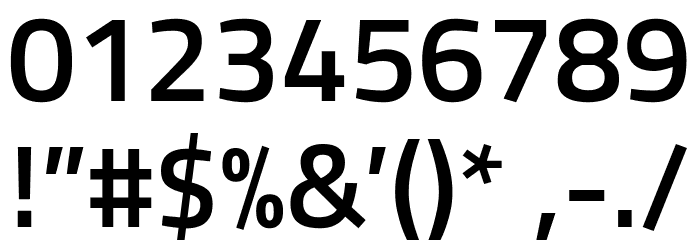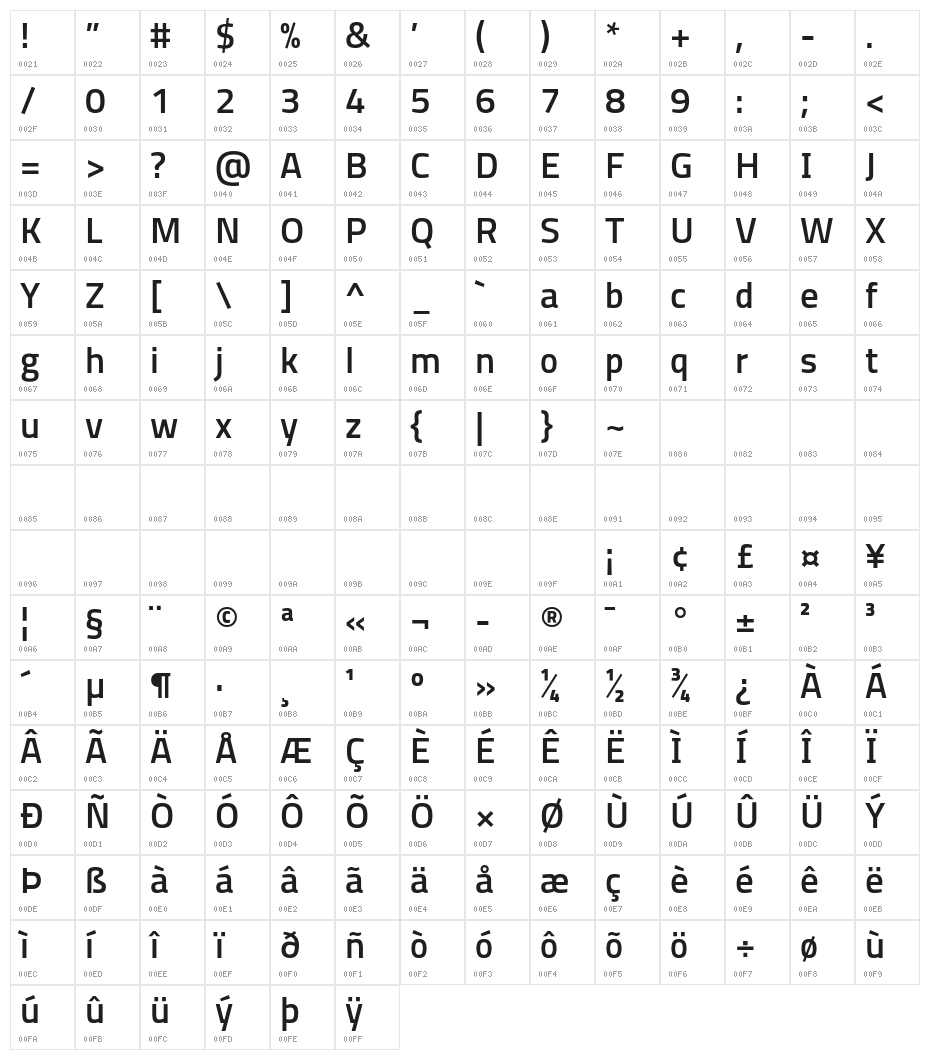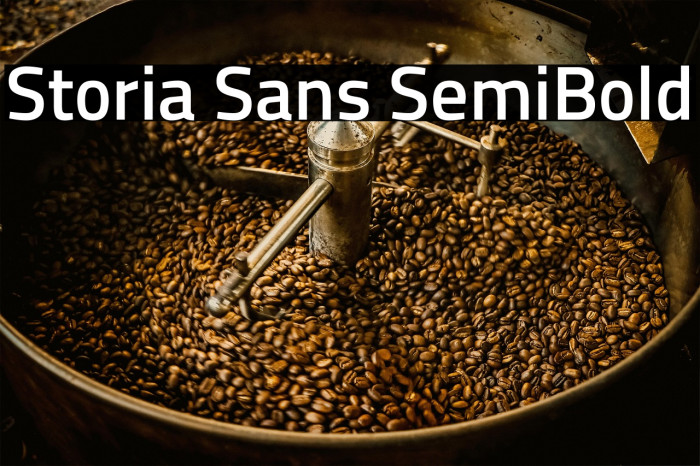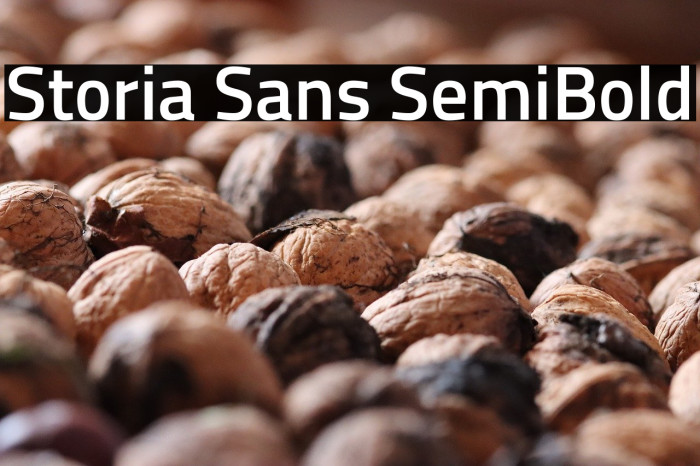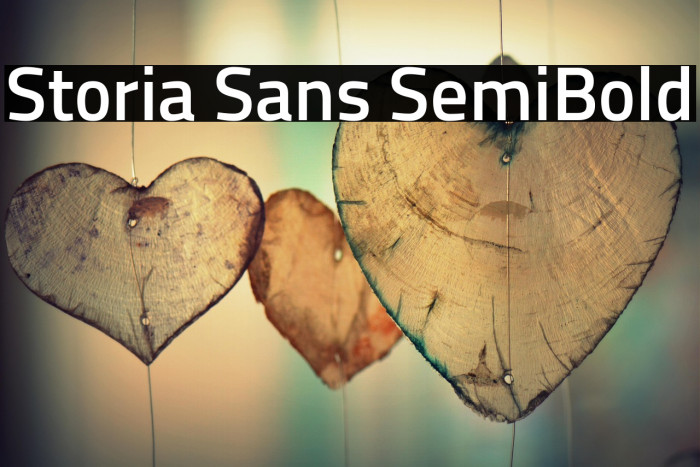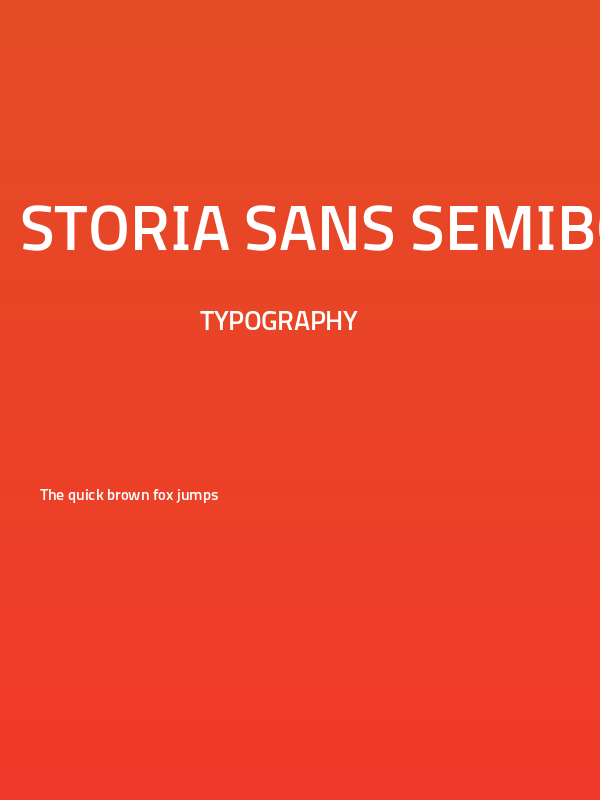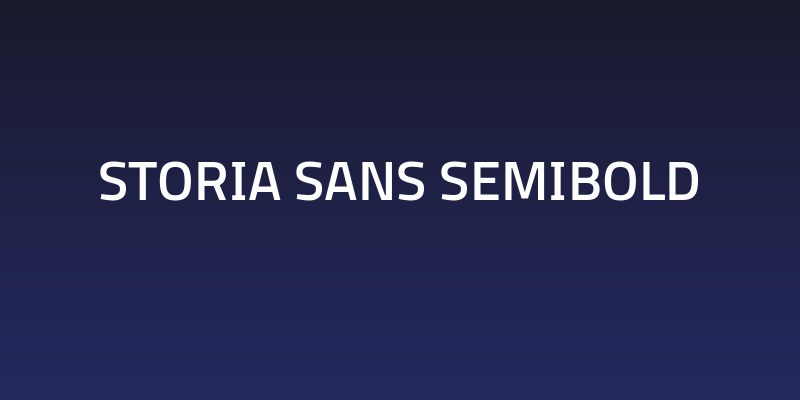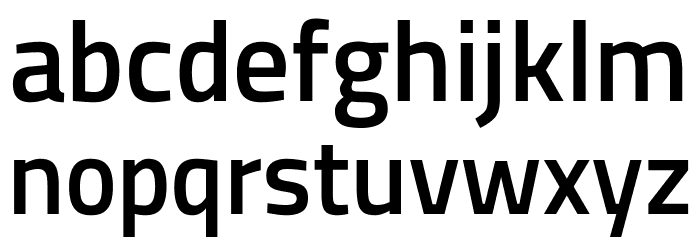
Storia Sans SemiBold Font
Storia Sans SemiBold Description
This font presents a clean and modern sans-serif style with a semi-bold weight, offering a strong yet approachable appearance. The characters are well-defined with a consistent stroke width, providing excellent readability. Its geometric shapes and balanced proportions make it versatile for various design applications. The font maintains a professional look, suitable for both digital and print media. The character set includes uppercase and lowercase letters, numbers, and a range of punctuation marks and symbols, ensuring comprehensive usability.